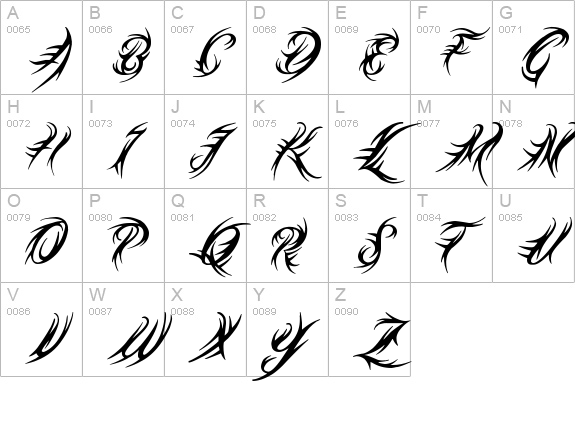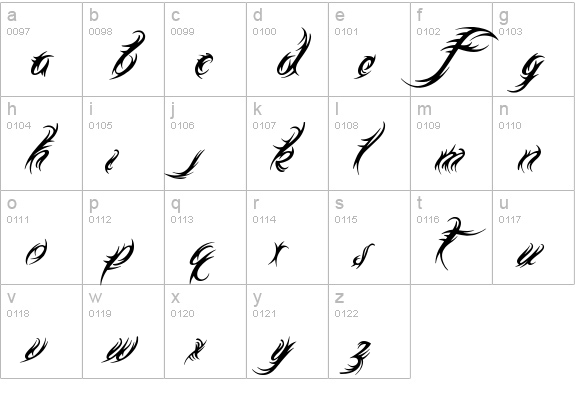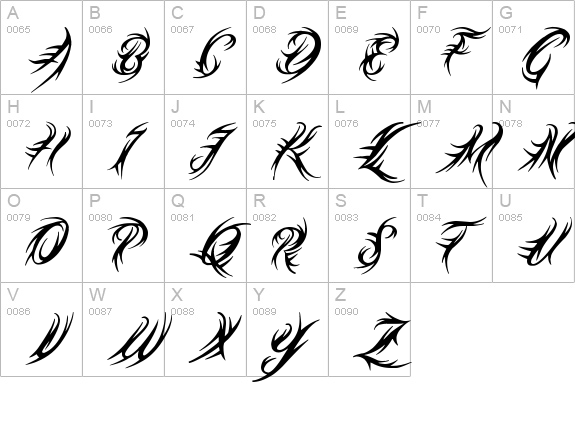
Introducing the captivating This is Tattoo font, a stunning typeface that will leave a lasting impression on any design project. Inspired by the artistry and intricacy of tattoo designs, this font embraces the boldness and edginess that tattoos often represent. Each letter is meticulously crafted with sharp lines and unique embellishments, ensuring that every word stands out with its own distinct personality. This is Tattoo font is a versatile choice for a wide range of applications. Whether you're designing a logo for a tattoo studio, creating eye-catching promotional materials, or simply adding a touch of artistic flair to your personal projects, this font will elevate your designs to new heights. One of the best aspects of This is Tattoo font is that it is completely free to download. Yes, you read that right – this extraordinary font is available at absolutely no cost on FontsMarket.com. You can effortlessly access and enjoy the full potential of this font without any restrictions or limitations. This is Tattoo font offers a wide range of characters and special symbols, allowing you to fully express your creativity. With its wide variety of styles and weights, you can easily customize the look and feel of your text to suit your specific needs. Whether you prefer a clean and minimalist approach or a more elaborate and ornate design, This is Tattoo font has got you covered. Not only does This is Tattoo font provide an exceptional aesthetic appeal, but it also ensures great legibility. Every letter is beautifully designed to maintain clarity, even at smaller sizes. This makes it a perfect choice for various mediums, such as print and digital applications. Don't miss out on the opportunity to enhance your designs with the captivating This is Tattoo font. Download it for free today at FontsMarket.com and unlock a world of creative possibilities. Let your imagination run wild and bring your projects to life with the distinctive charm and allure that only This is Tattoo font can offer.